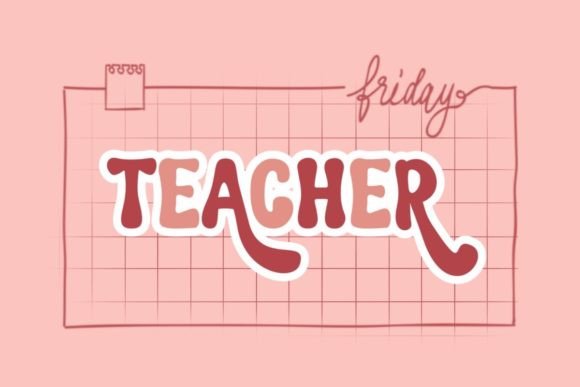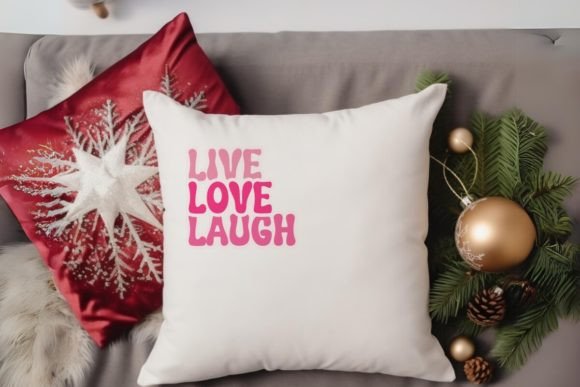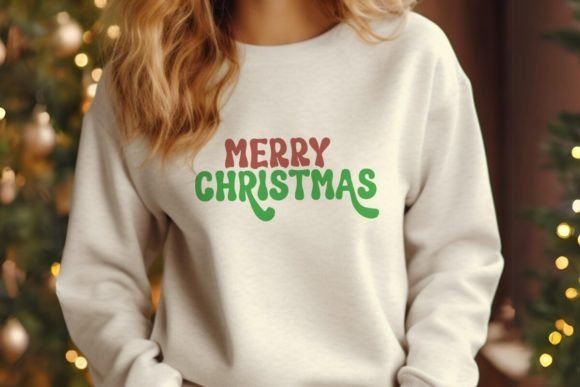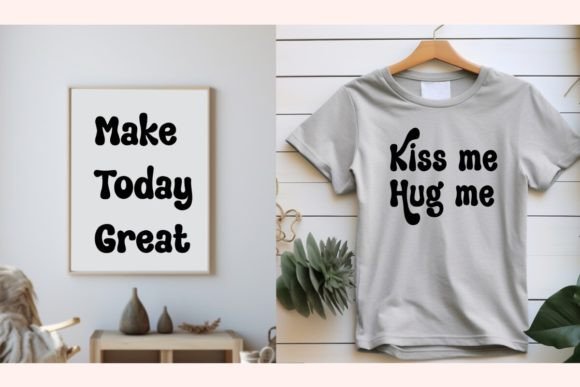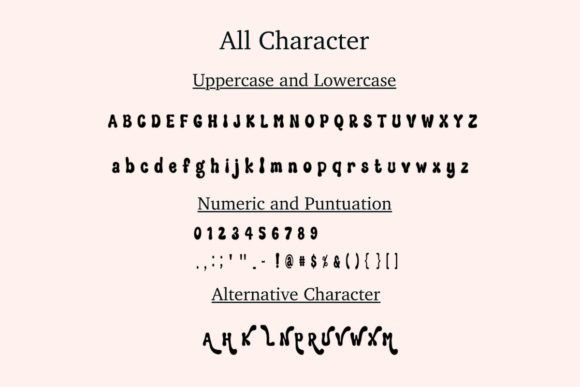
Introduction to Magic Van Font
Magic Van Fonts is a cute, groovy retro display font.
This font combines the classic charm of serif typography with a groovy twist, creating a captivating and unique look for your designs The font also adorned with some swashes in alternative letters, providing the flexibility to create captivating headlines or titles with visually appealing aesthetics.
Key Features of Magic Van Font
Why Choose Magic Van Font?
Magic Van Font offers exceptional quality and versatility, making it a valuable addition to your design toolkit. Whether you’re creating for personal projects or commercial use, Magic Van Font delivers professional results.